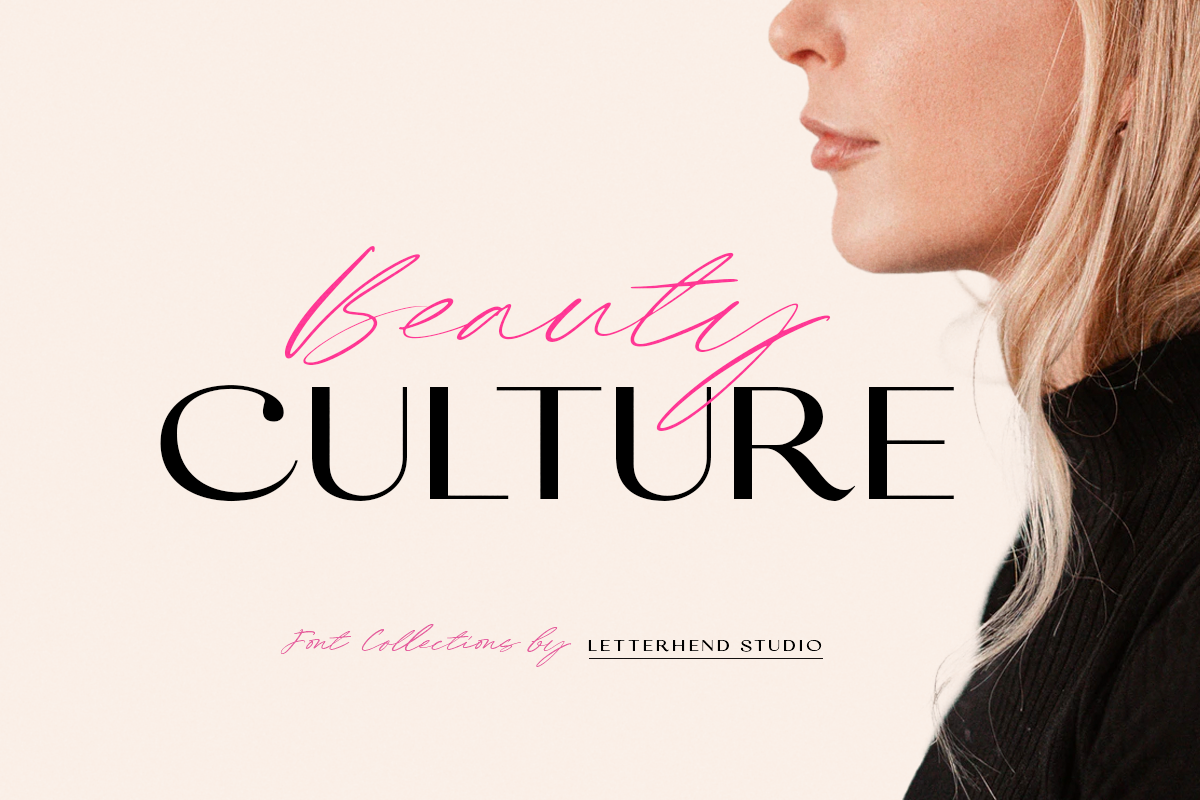
Beauty Culture Font
The Beauty Culture Font is ideal for high-end beauty salons, luxury cosmetics branding, fashion magazine layouts, sophisticated makeup artistry portfolios, premium skincare packaging, elegant spa marketing, contemporary beauty blogs, and cultural beauty celebrations. This refined typeface brings modern glamour and cultural sophistication to any design project requiring beauty industry elegance and contemporary style.
What makes the Beauty Culture Font so exciting is its perfect embodiment of contemporary beauty standards that celebrate diverse cultural expressions of beauty through letterforms that radiate confidence, inclusivity, and modern sophistication. The font features sleek curves, elegant proportions, and refined details that reflect the evolution of beauty culture from traditional standards to contemporary celebrations of individual expression and cultural diversity.
The Beauty Culture Font family includes thin, light, regular, medium, bold, and black weights, each available in upright and italic styles, plus stylistic alternates and beauty-inspired ornaments, providing designers with comprehensive tools for creating inclusive beauty brand experiences and culturally aware design communications.
Celebrate diverse beauty with the Beauty Culture Font Free Download. This contemporary typeface has become essential for progressive beauty brands, cultural beauty influencers, and inclusive cosmetics companies who need typography that reflects modern beauty culture's embrace of diversity, self-expression, and cultural celebration. The font features extensive character support including multilingual capabilities, beauty symbols, and cultural punctuation optimized for global beauty applications.
Whether you're developing branding for inclusive beauty brands, creating materials for cultural beauty celebrations, or designing communications for diverse cosmetics companies, this font delivers modern sophistication. The carefully balanced letterforms maintain excellent readability while conveying the confident elegance and cultural awareness that resonates with contemporary beauty consumers who value authenticity and representation.
Beauty industry professionals appreciate the font's ability to communicate modern glamour while respecting cultural diversity and individual expression. The sophisticated design elements create immediate recognition of beauty expertise while helping brands establish connections with audiences who seek products and services that honor their unique cultural beauty traditions and personal style preferences.
The Beauty Culture Font excels in applications where cultural sensitivity and beauty expertise intersect, from inclusive marketing campaigns to diverse beauty education materials. The font's contemporary heritage makes it particularly effective for brands serving global beauty communities and celebrating cultural beauty diversity.